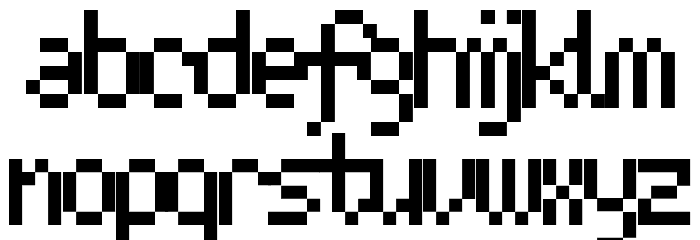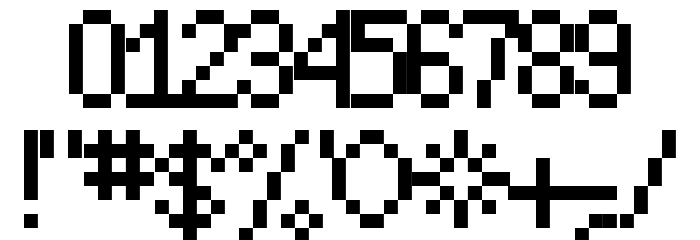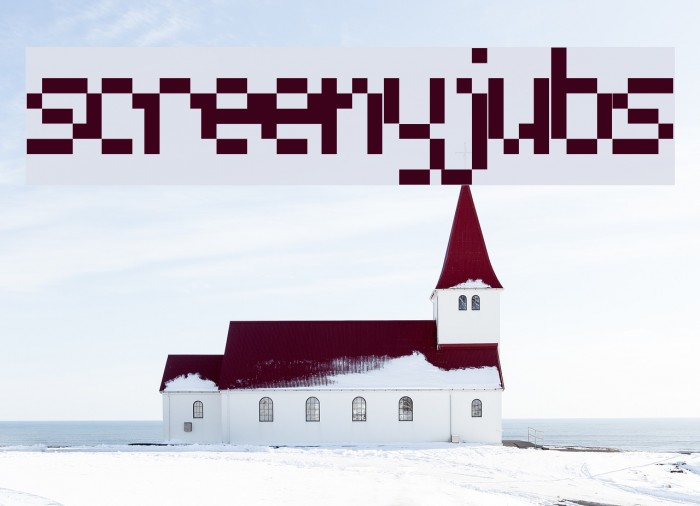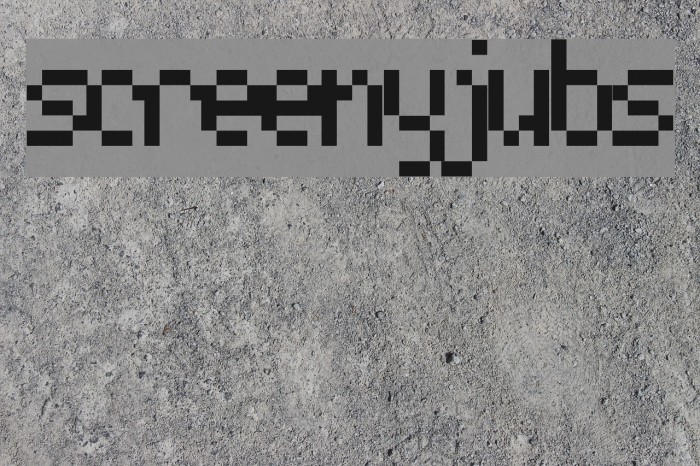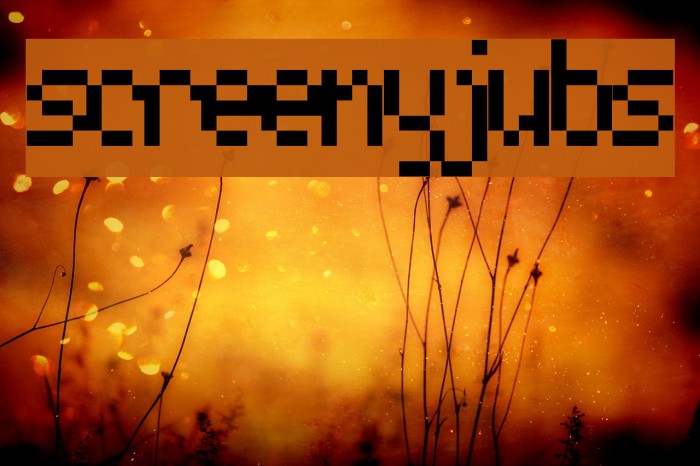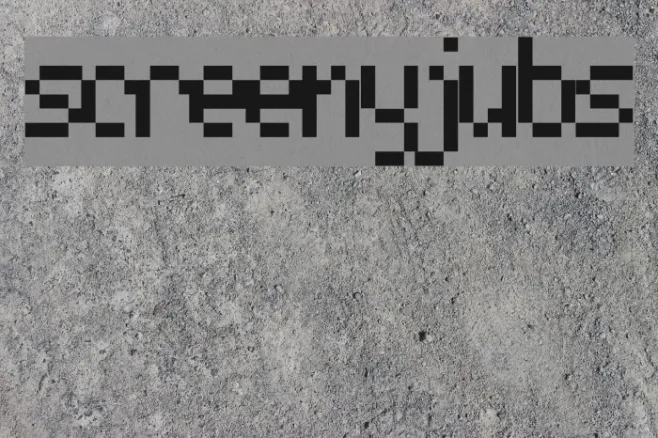
screenyjubs Font
This font features a pixelated, blocky design reminiscent of early digital or video game typography. Each character is composed of square blocks, giving it a distinctly retro and digital appearance. The uppercase and lowercase letters maintain a consistent height, with minimal differentiation in size, enhancing the uniformity of the design. Numbers and special characters follow the same pixelated style, ensuring a cohesive look across all elements. The font's geometric structure and sharp edges make it ideal for projects that aim to evoke nostalgia or a tech-inspired aesthetic.
A pixelated, retro-style font with a blocky, digital appearance.
- Proposed Projects: Ideal for video game designs, retro-themed posters, digital art, and tech-inspired branding.
- Overall Style: Retro, Digital
- Use Case: Headlines, Logos, Digital Art